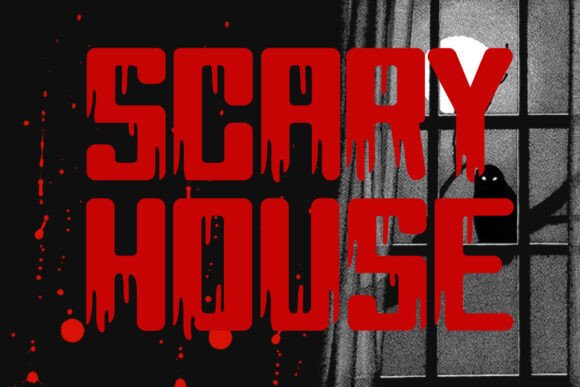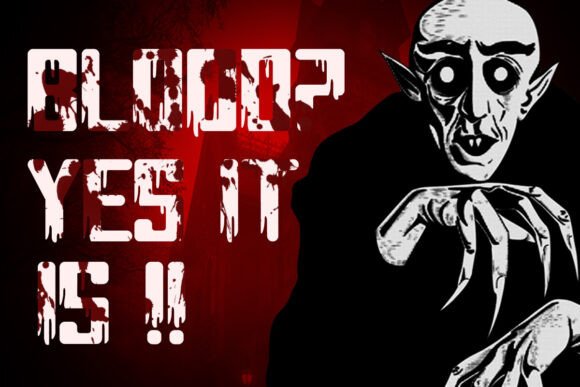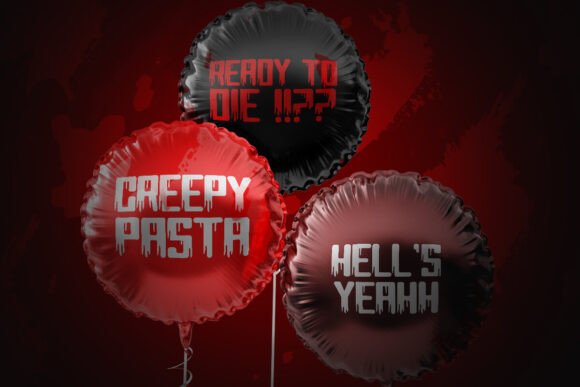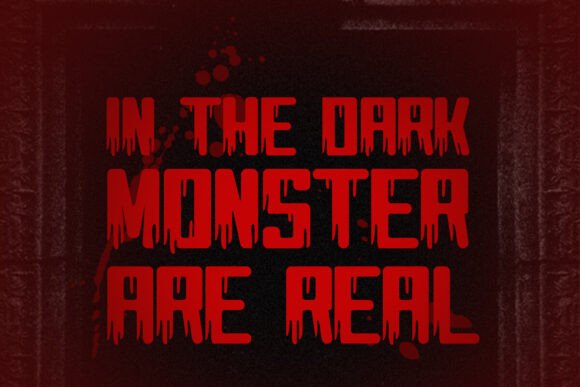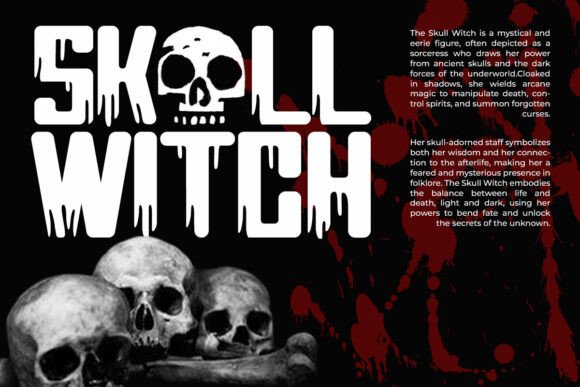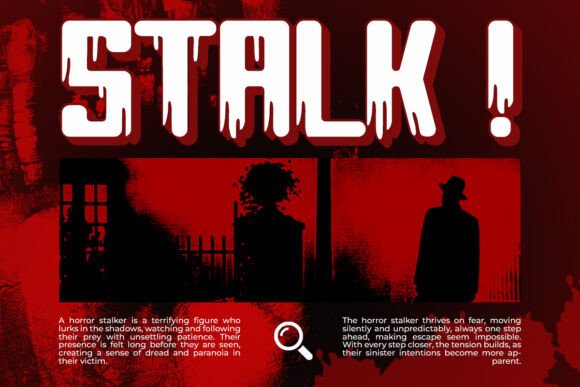
Introduction to Haunted City Font Font
Fonts play a crucial role in design, and the Haunted City Font font is a typeface that brings both character and versatility to any project. Whether you’re working on a branding project, a website, or a print design, the Haunted City Font font offers a unique style that can elevate your work.
| 👤 Author | pandekastudio |
Introducing Haunted City – a terrifying horror typeface designed to send chills down your spine.
Haunted City is perfect for creating a dark and eerie atmosphere, making it ideal for Halloween celebrations and other fear-filled occasions Its three styles — Regular, Outline, and Extrude — provide versatility and depth to your designs, adding that sinister touch.
The Haunted City Font font is more than just a typeface – it’s a design tool that helps you communicate your message with style and clarity. Its unique character set and versatile design make it suitable for a wide range of applications, from elegant invitations to bold headlines.
With its carefully crafted letterforms and balanced proportions, the Haunted City Font font ensures readability and visual appeal across all mediums.
What makes Haunted City Font font special?
The Haunted City Font font stands out with its unique design, exceptional readability, and versatility across various design applications.